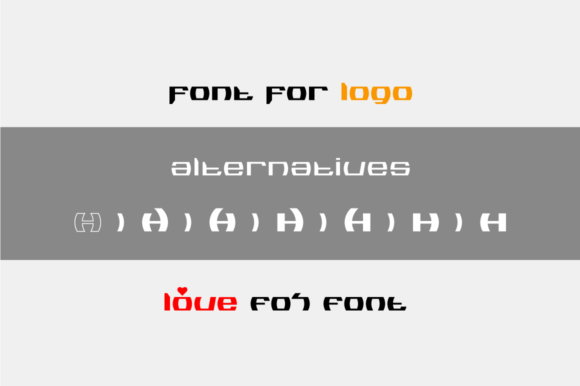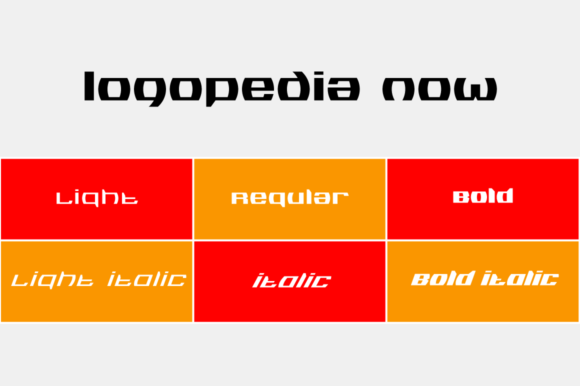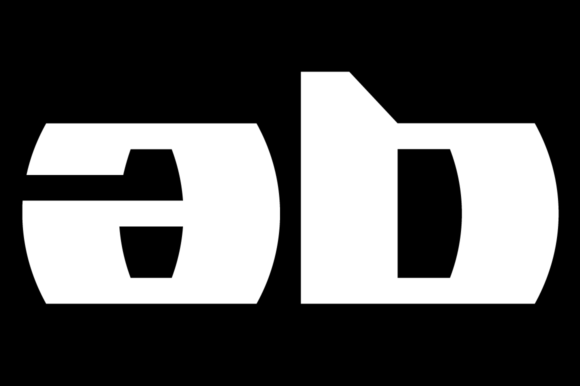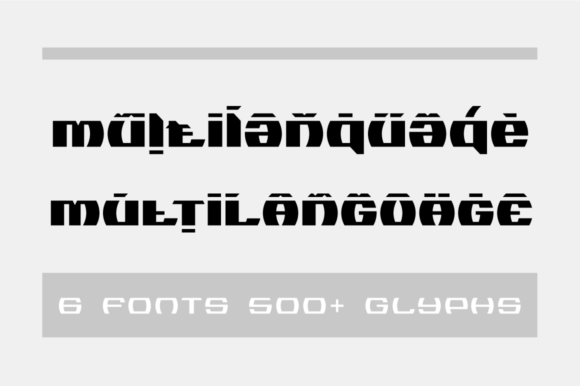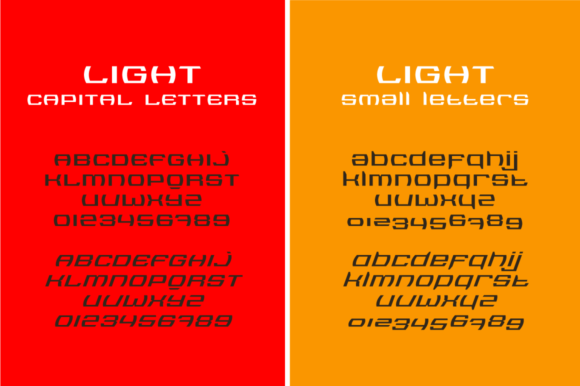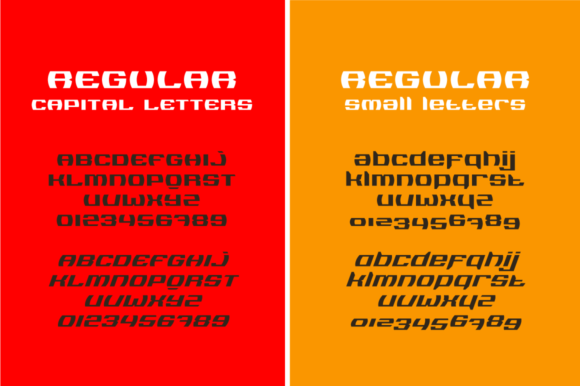
Introduction to Logopedia Now Font
Logopedia Now is a geometric and cool display font.
It celebrates abstract shapes in all their eclectic brilliance Add this font to your creative ideas and notice how it will make them stand out.